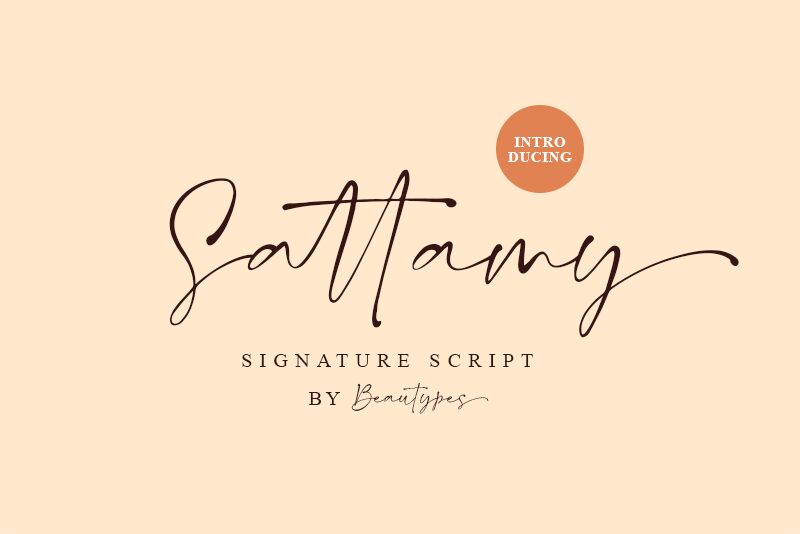
Introducing Sattamy Signature, a light and beautiful font designed by Rizaldi. This signature-style font is perfect for crafting eye-catching logos, wedding invitations, social media posts, and more! Show off your creativity with this unique typeface that will surely make your project stand out.
Sattamy Signature
Beautype Studio
Rizaldi